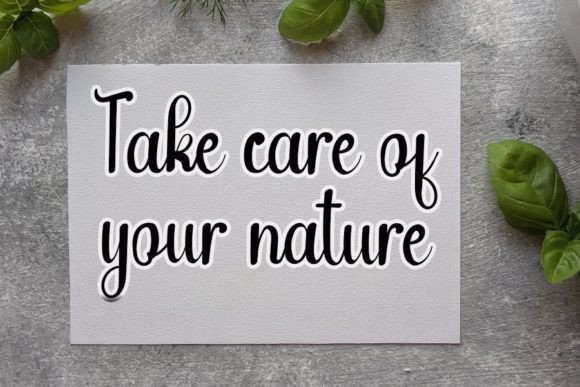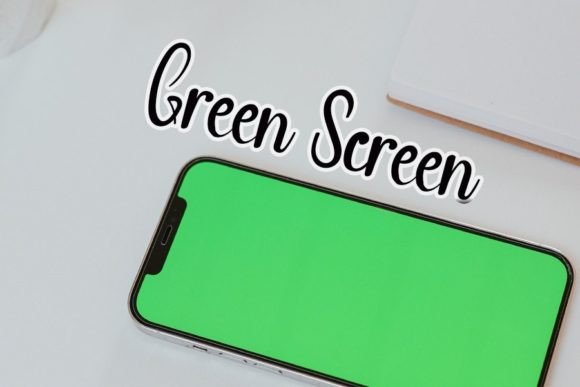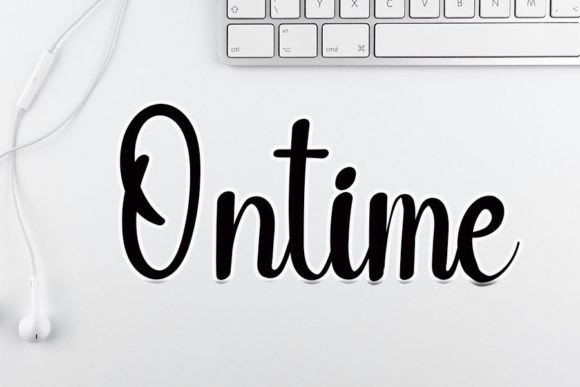
Introduction to Shining Rainbow Font
Have you ever found yourself in a creative zone, surrounded by colors, and suddenly, the perfect font pops up in your mind? That’s exactly what happened to us when we stumbled upon the Shining Rainbow Font. This stunning handwritten font is more than just a design element; it’s a game-changer for any creative project. With its modern vibe and spotless form, it’s no wonder why designers are going crazy about it.
As a valuable design resource, the Shining Rainbow Font is perfect for those who want to add a touch of elegance and sophistication to their work. Its balanced and varied design makes it a great choice for a wide range of projects, from logos to social media graphics. And the best part? It’s available for free download, making it an excellent addition to any designer’s toolkit.
- Unique, colorful design that adds a touch of whimsy to any creative project
Honest Review: Shining Rainbow Font
I recently came across the Shining Rainbow Font and was excited to give it a try. As a designer, I’m always on the lookout for high-quality design resources that can elevate my creative projects. The Shining Rainbow Font definitely delivers.
What works well about this font is its vibrant and playful aesthetic. The transparent background makes it easy to combine with other design elements, and the free download is a major plus. The font is also incredibly versatile, making it suitable for a wide range of creative projects, from social media graphics to marketing materials.
- ✨ High-quality design with a transparent background
- ✨ Versatile and suitable for various creative projects
However, I did notice a few limitations. The font may not be the best choice for more formal or professional projects, as its playful nature may not be suitable for those types of designs. Additionally, the font may not be as customizable as some other design resources.
- ⚠️ May not be suitable for formal or professional projects
- ⚠️ Limited customization options
Overall, I’m impressed with the Shining Rainbow Font and would definitely recommend it to designers looking for a fun and versatile font for their creative projects. With a little creativity, the possibilities are endless!
Designing with the Shining Rainbow Font
When using the Shining Rainbow Font in your creative project, remember to take advantage of its transparent background feature to create visually appealing designs with a high-quality finish.
To get the most out of it, use it in conjunction with a high-quality image or background to create a stunning visual effect.